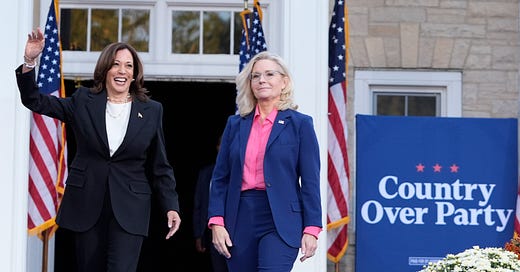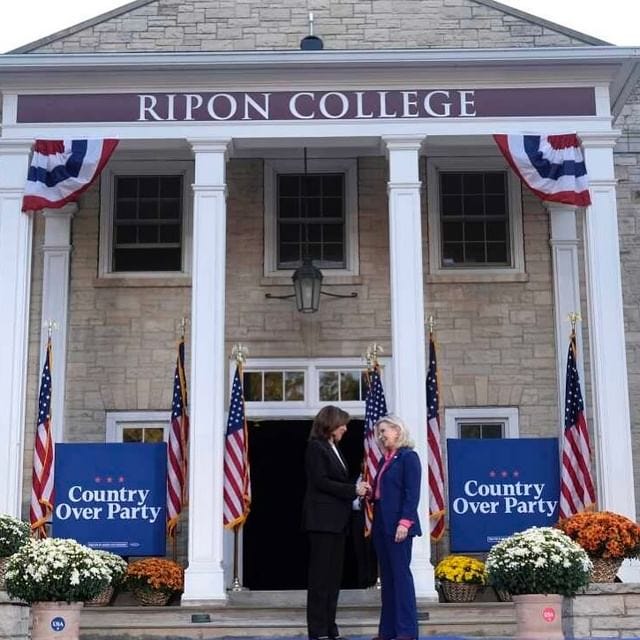
How Harris is using a serif font to win over Republicans
When Vice President Kamala Harris visited the birthplace of the Republican Party Thursday for a campaign event with former Rep. Liz Cheney (R-Wyo.), she used a different font.
The signage at the event in Ripon, Wisc., spelled out the name of the host city, where the GOP was founded by abolitionists in 1854, and the slogan “Country Over Party,” highlighting the rally’s bipartisan message. But rather than being set in Fearless, the adapted and renamed tall sans-serif font Sans Plomb that the Harris campaign uses in its logo and branding, the signage was all set in a serif.
Research has found people tend to view serif type as more conservative than sans-serif type. With their small “feet,” serif fonts, like Times New Roman and Baskerville look traditional compared to the modern look of sans-serif fonts like Helvetica and Futura. The perceived ideological leanings of fonts makes sense. Still, sans-serif is the default setting of politics today, with most Republican campaigns, including former President Donald Trump’s, opting for the type style for their logos.
Serifs, then, can help campaigns stand out or signal their conservatism because they look throwback. Though Ronald Reagan used sans-serif fonts during his unsuccessful 1976 presidential campaign, when he returned in 1980, his campaign began using the serif Century Old Style in buttons, posters, and commercials. Trump’s former Vice President Mike Pence used retro-style serif type during his 2024 presidential campaign to compliment his message about a return to traditional conservatism.
This was an event for building a broad coalition. Cheney praised Pence for refusing to go along with Trump’s attempt to overturn the election on Jan. 6, 2021 during her remarks, and citing Trump’s threat to democracy, she said Harris “is standing in the breach at a critical moment in our nation’s history. She’s working to unite reasonable people all across the political spectrum.”
“I have never voted for a Democrat, but this year I am proudly casting my vote for Vice President Kamala Harris,” Cheney said.
The Harris campaign’s serif signage Thursday was just one piece of the staging that was designed to look traditional. Campaign advance is an important part of political visual rhetoric that can reinforce a candidate’s message, so smart campaigns pay attention to the details. To deliver a speech this week about tariffs and taxes, Trump spoke at a Wisconsin manufacturing plant with signage that read “Jobs! Jobs! Jobs!”
The Harris campaign picked Ripon to send a message to Republicans (as Harris herself said during her speech, “the president of the United States must not look at our country through the narrow lens of ideology or petty partisanship or self-interest”), and the site of the event, Ripon College, provided a setting that read steady and historical with its old building and columns. This was not the type of speech to deliver in front of a modern building. The older, the better. The stage was set with bunting, flowers, and U.S. flags.
Harris’ joint event with Cheney after she and her Republican father, former Vice President Dick Cheney, gave coveted cross-party endorsements, stands in contrast to Trump after he got the backing of former Democrat Robert F. Kennedy Jr.
Trump’s rally with RFK Jr. in Glendale, Ariz., in August was staged like a wrestling match, complete with fireworks and signs that read “Fight! Fight! Fight!” Harris’s joint event with Cheney was decidedly more staid. You might even describe it as conservative.
This merch from Gloria Steinem and Shepard Fairey’s Studio Number One will raise money for voter engagement
Artist Shepard Fairey’s Studio Number One and activist Gloria Steinemhave contributed designs to a new collection from the fundraising platform Merch Aid to raise money to support voter engagement.
Merch Aid’s Election Collection features t-shirts showing a quote from Steinem embroidered in her handwriting, “If you don’t vote, you don’t count!” Fairey’s Studio Number One contributed a design showing a dove that makes the shape of a checkmark inside of a box that reads “Vote For Our Future” as well as a poster of a raised fist that says, “Your Vote Your Power.”